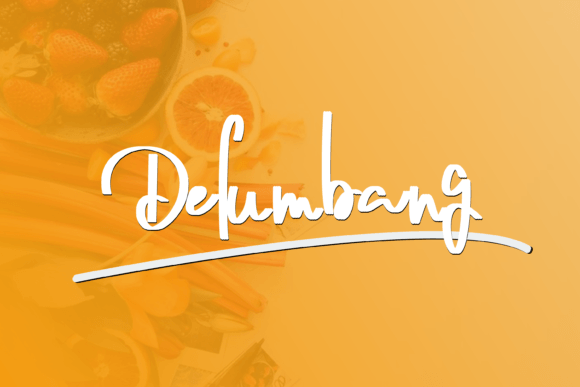
Introduction to Delumbang Font
Delumbang is a charming and casual handwritten script font.
Whatever the topic, this font will be a wonderful asset to your font library, as it has the potential to enhance any creation .
Key Features of Delumbang Font
Why Choose Delumbang Font?
Delumbang Font offers exceptional quality and versatility, making it a valuable addition to your design toolkit. Whether you’re creating for personal projects or commercial use, Delumbang Font delivers professional results.